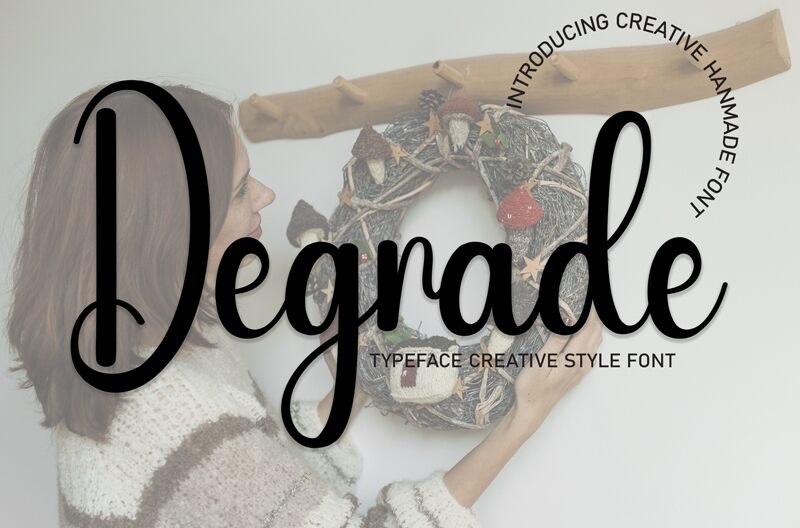
Degrade
Degrade is a captivating handwritten font that exudes an effortless charm. Its condensed, flowing strokes create a sense of natural movement, evoking the graceful flourishes of calligraphy. This font's unique character shines through in its subtle imperfections, lending a distinct artisanal quality that can elevate a wide range of design projects.
From elegant wedding invitations to rustic product branding, Degrade's versatility allows it to seamlessly adapt to diverse aesthetic contexts. Its distinctive personality adds a touch of personal flair, making it an ideal choice for businesses or creatives seeking to convey a warm, handcrafted ambiance.